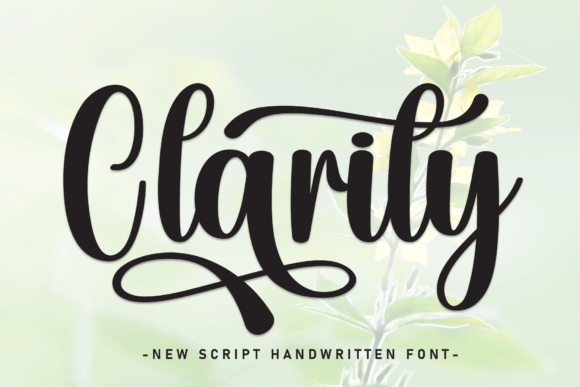
Dive into the exquisite realm of Clarity Font, the script font family that captures the essence of vintage charm and timeless beauty. Crafted with meticulous artistry by Roronoa Zoro.S.P.D, this font exudes an aura of nostalgia and elegance that will leave an indelible mark on your creative projects.
Clarity Font stands apart from the mundane, transporting you back to an era of classic sophistication. Its graceful curves and delicate details evoke a sense of longing for simpler times, making it the perfect choice for vintage-inspired designs. Whether it's a heartfelt wedding invitation, a captivating social media post, or a timeless product label, Clarity Font will add a touch of magic to your creations.
Immerse yourself in a world of endless possibilities with Clarity Font. Its versatility knows no bounds, seamlessly adapting to a myriad of projects. Let your imagination run wild as you incorporate this font into wall displays, logos, advertisements, and even product designs. The intricate details of Clarity Font will captivate your audience, leaving them spellbound by the beauty of your designs.
Clarity Font is not just a font; it's an invitation to explore a realm of creativity and boundless expression. Its vintage charm and modern functionality combine to create a font that will elevate your designs and leave a lasting impression on your audience. Embrace the beauty of Clarity Font today and embark on a creative journey like never before.